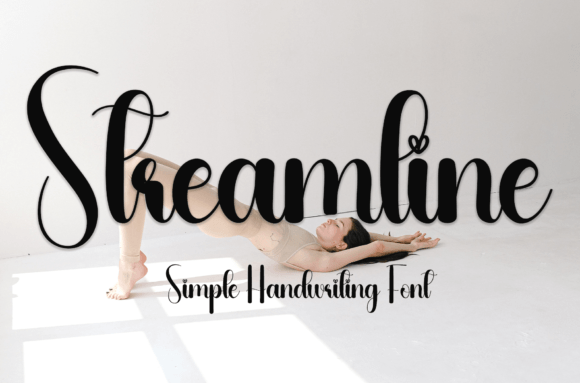
Unleash the allure of Streamline Font, a mesmerizing script font that exudes warmth and charm. Crafted with meticulous attention to detail by the renowned William Jhordy, this font is a symphony of elegance and playfulness. Streamline's captivating curves and gentle strokes dance across the page like a gentle breeze, evoking a sense of nostalgia and whimsy.
Immerse yourself in the beauty of Streamline's intricate swirls and flourishes, which add a touch of timeless sophistication to any project. Its captivating aesthetics make it the perfect choice for wedding invitations, cards, and any other design that yearns for a touch of heartfelt charm.
With Streamline Font, your words will blossom into works of art, captivating your audience with their enchanting allure. Its versatility extends beyond traditional applications, making it a splendid choice for branding, logos, and social media designs. Unlock the full potential of your creativity and elevate your designs to new heights with Streamline Font.